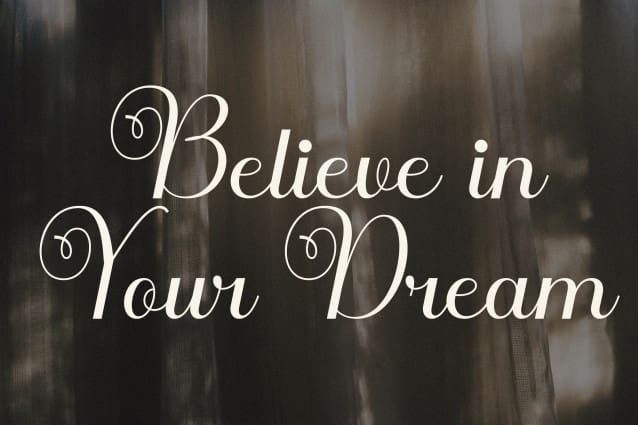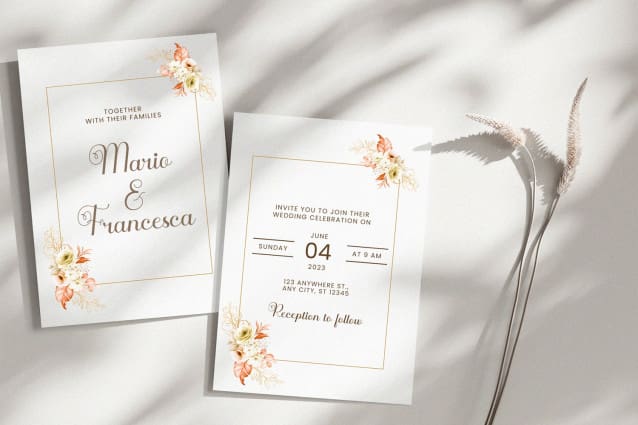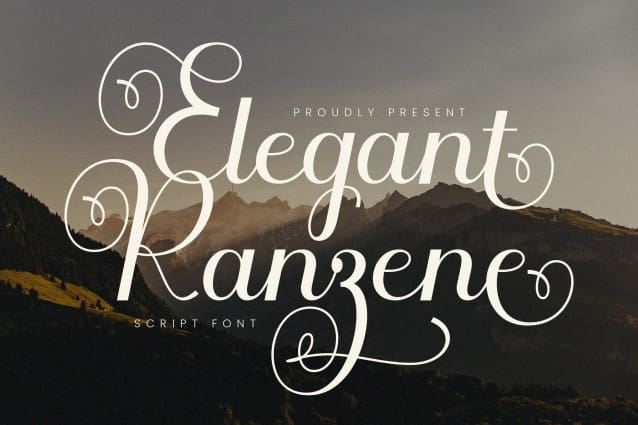
Ranzene Script Font
Ranzene Script Font is a elegant calligraphy font. Featuring the perfect amount of trendiness, this font will make your designs come to life. Its authentic look will add a personal and realistic feel to your designs.